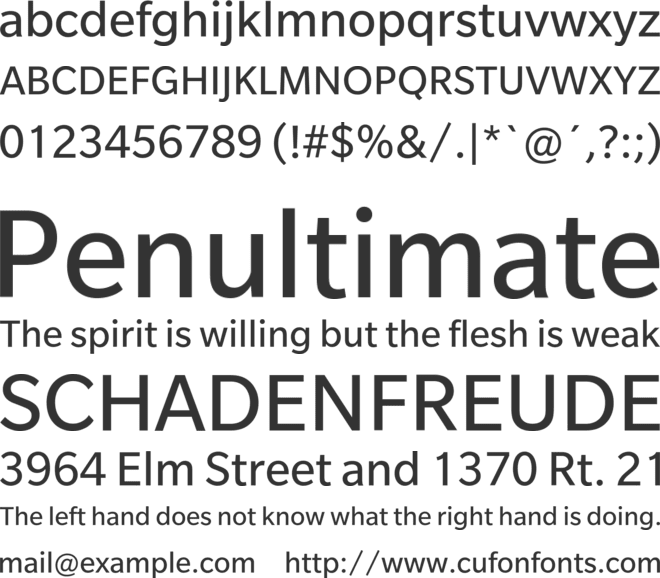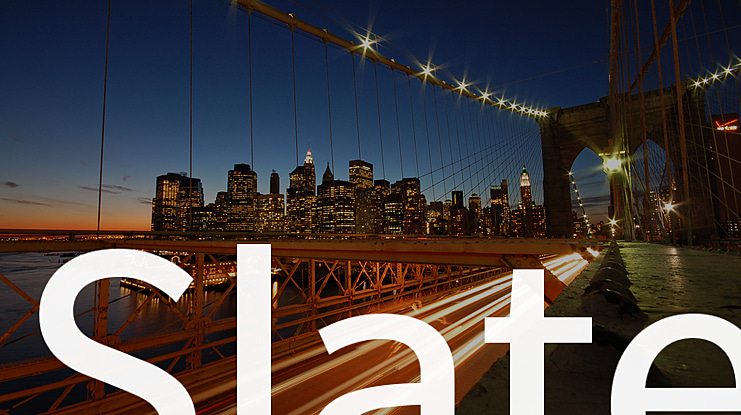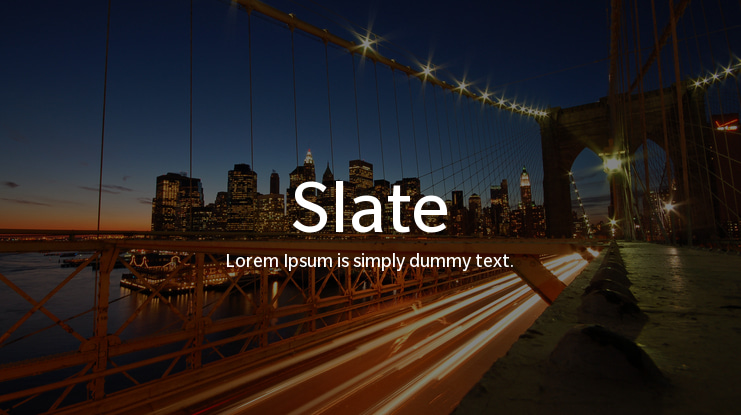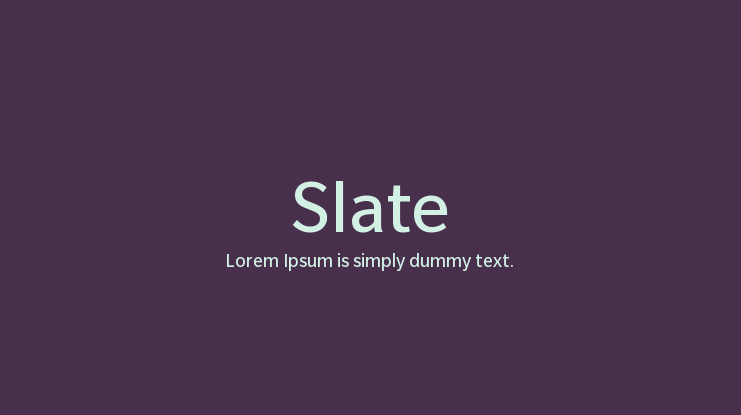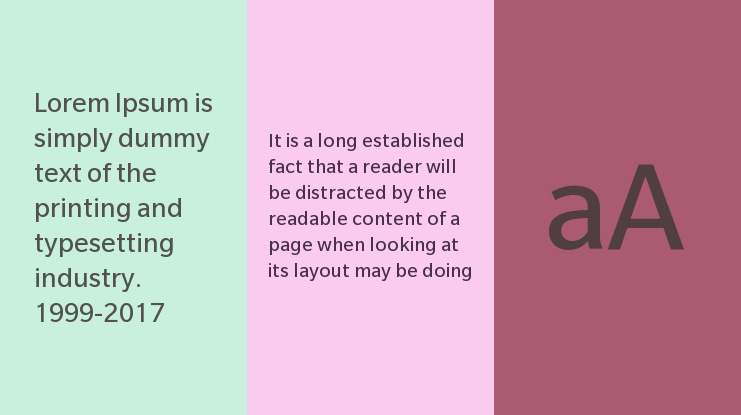
Slate Font Family
Rod McDonald
A truly beautiful typeface that achieves stellar levels of readability, in print and on screen. Meet Slate, from award-winning designer Rod McDonald. This six-weight sans serif family is a rare example of sublime aesthetics meeting world-class functionality, and no graphic communicator will want to be without it.
Slate is available in six weights of roman and complementary italics, with slight changes in style from the light to the black weights. The light is reminiscent of early American sans, like News Gothic; the medium has the feel of Akzidenz Grotesk, and the black functions much like the bold weights of Futura or Franklin. Overall, Slate is a typeface of grace, power and exceptional versatility.